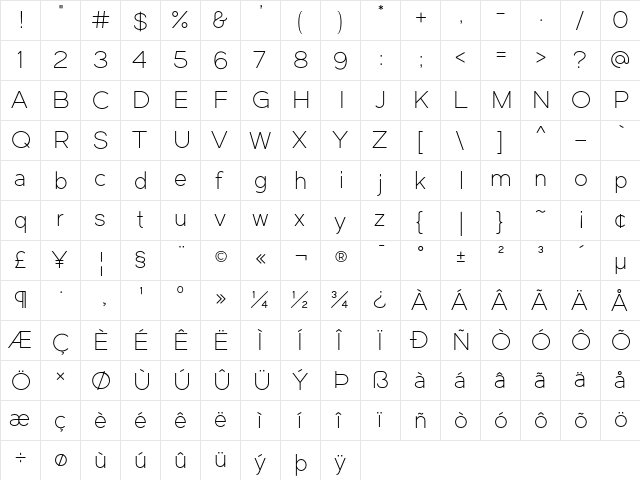
Dual 300
| Foundry | Charles Daoud |
| Designer | Charles Daoud |
Design Context for Dual Typeface
Dual takes a measured approach to typography — its balanced proportions and neutral character make it a reliable workhorse for both digital and print work.